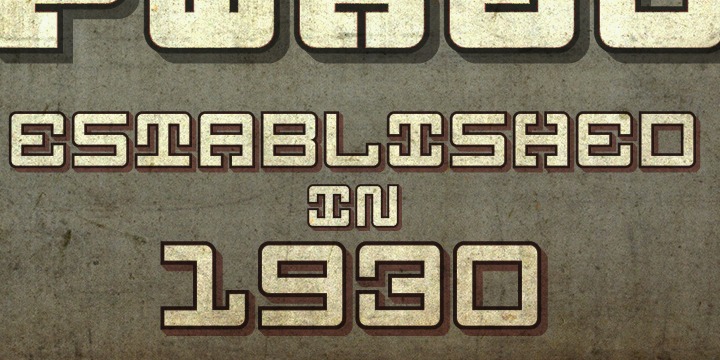
No respect at all of any conventional font design: no ascender, no descender, monospace, monoheight, interior slab.
The main focus was to create a readable font and been totally free of any standard design restriction.